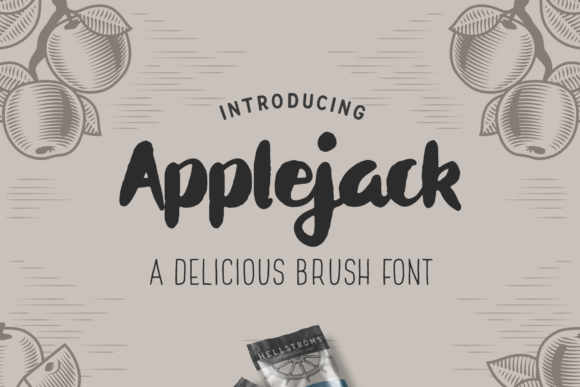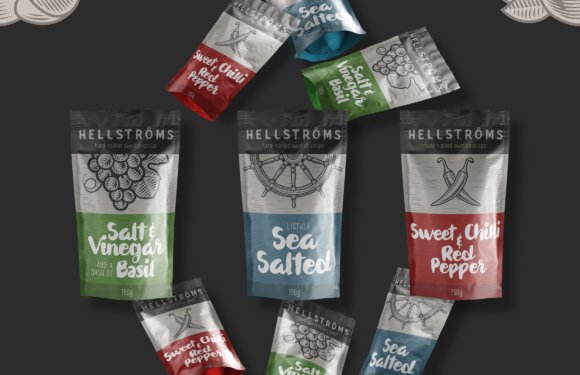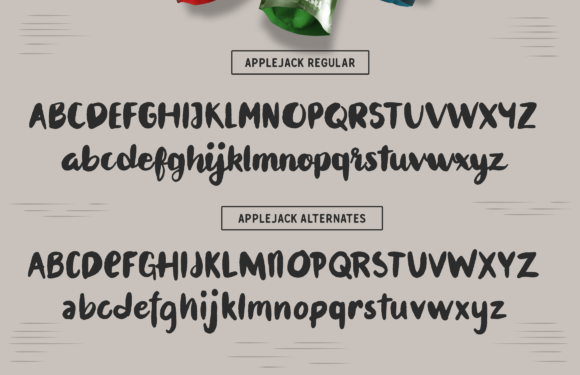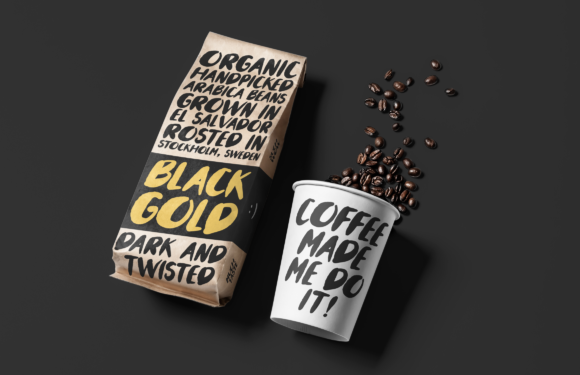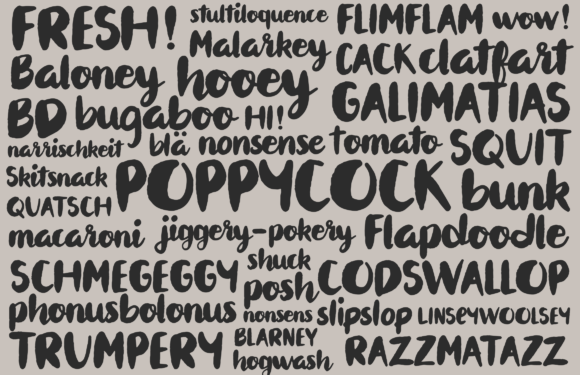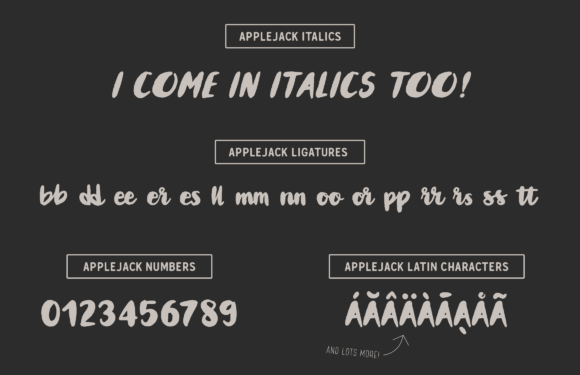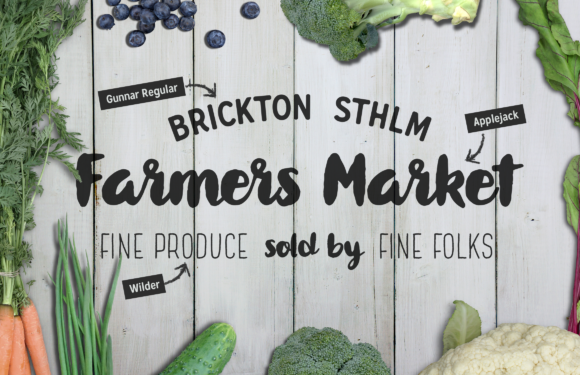
Applejack Font
About Applejack Font
Applejack is a deliciously chubby brush script font, ideal for emulating a brush-lettered feel for your projects. This font looks amazing when paired with a delicate sans serif, and is perfect for adding an authentic appeal to package designs and other branded projects.